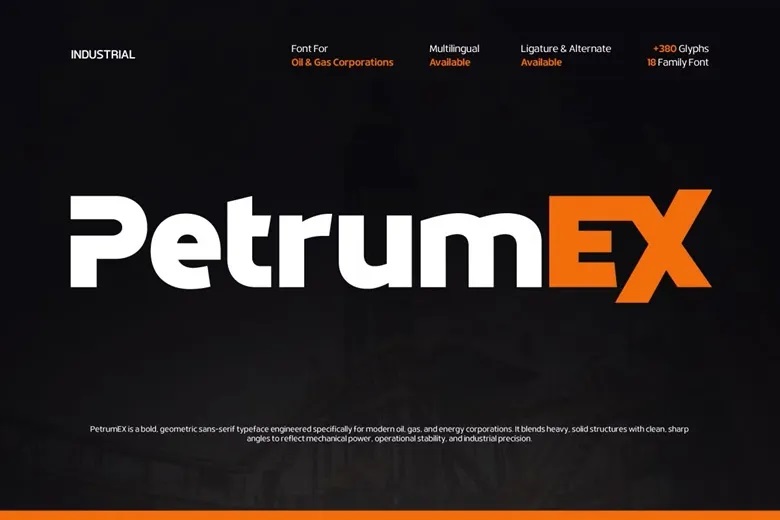
PetrumEX Font
PetrumEX is a modern sans-serif font designed for energy, oil and gas, manufacturing, and industrial branding. Its bold geometric shapes and solid letters convey a sense of reliability, stability, and technical precision, qualities important in today’s industrial world. The clean shapes and sharp, industrial details make the font both strong and easy to read.
This typeface works well for energy company logos, engineering websites, corporate identities, industrial presentations, annual reports, fuel branding, signage, and oil and gas marketing materials. Its strong look helps businesses show professionalism, credibility, and lasting strength in both digital and print formats.